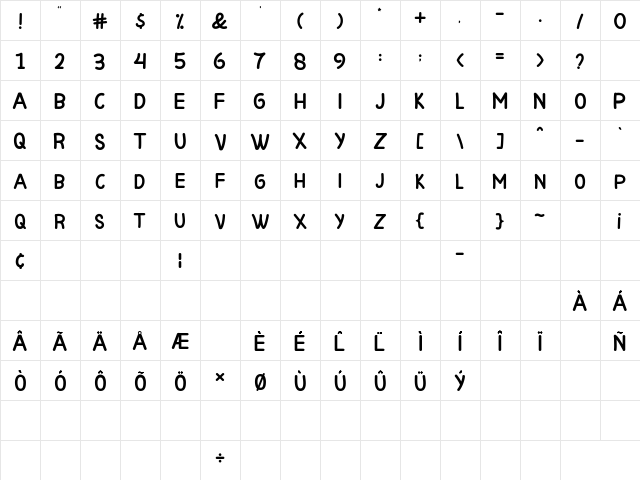
Pinky Unicorn Regular
| Foundry | Graphicxel |
| Designer | Usman Al Baehaqi |
Design Context for Pinky Unicorn Typeface
Pinky Unicorn takes a measured approach to typography — its balanced proportions and neutral character make it a reliable workhorse for both digital and print work.